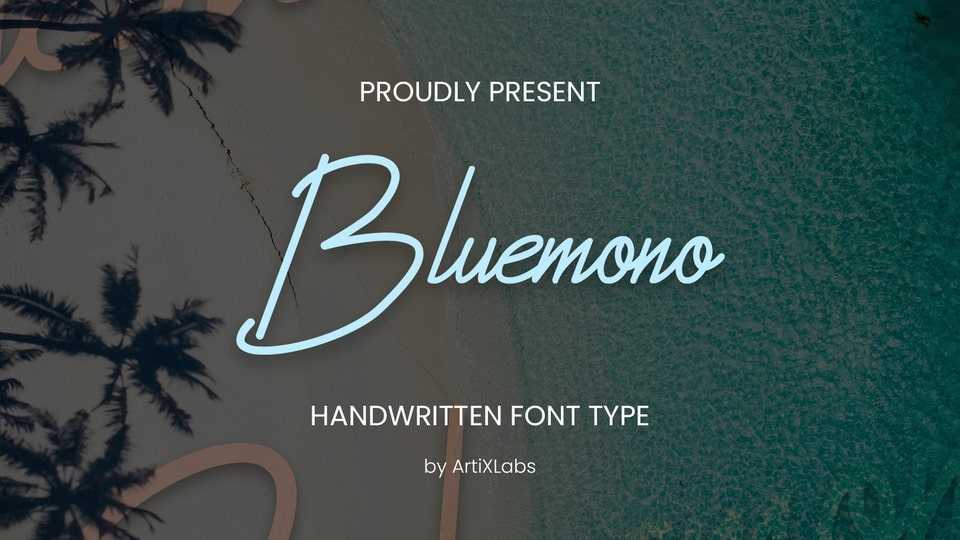
Download Introducing Bluemono font, a monoline handwritten script. This font template contains elegance, stylish, modern, creative, professional and unique concept.
Designer: ArtiXLabs